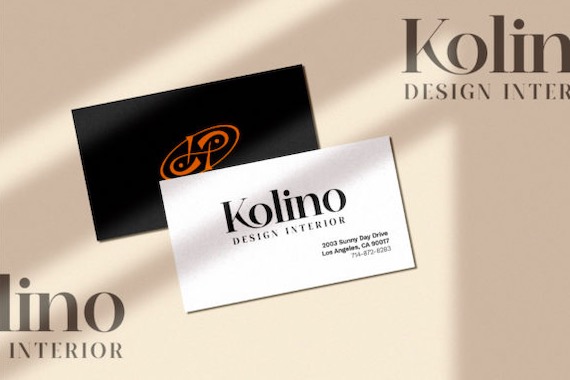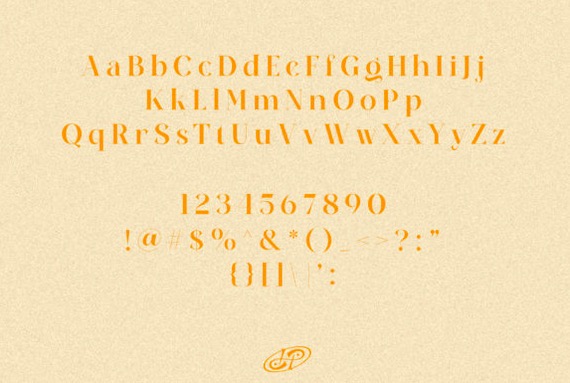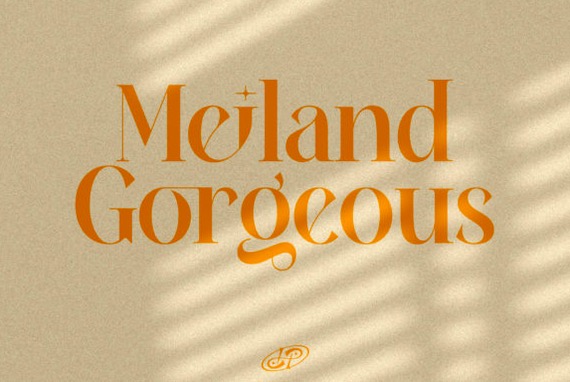
Meiland Gorgeous Font is a strong powerful yet distinct serif typeface that was created and shared by INKSUN™. No matter the topic, this font will be an incredible asset to your fonts’ library, as it has the potential to elevate any creation.
Meiland Gorgeous Serif Font